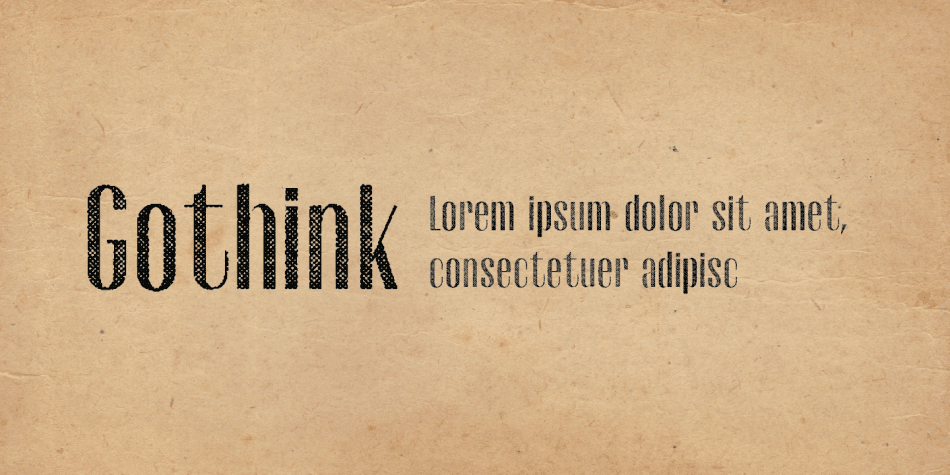
Gothink Font Family
The Gothink Sans Font Family is now available! Jadugar Design Studio created and shared it. Gothink is a one-of-a-kind typeface family with ten weights and four styles. Shadow, outline, aged, and rough types are all included. This is a luxury font family with a modern style and a full range of extra options, including outline and aged series. That is beautifully created, and I hope to see it in your future work.
You can use this beautiful Font for a variety of purposes, including posters, online graphics, game graphics, t-shirts, films, signage, and logos. However, in my opinion, the Font is mainly appropriate for any style of wallpaper because of its lovely curves. In addition, the typeface looks fantastic in any form of logo. You can use it flexibly with any project you want.
| Name | Gothink Font Family |
| Style | Sans serif |
| Designer | Jadugar Design Studio |